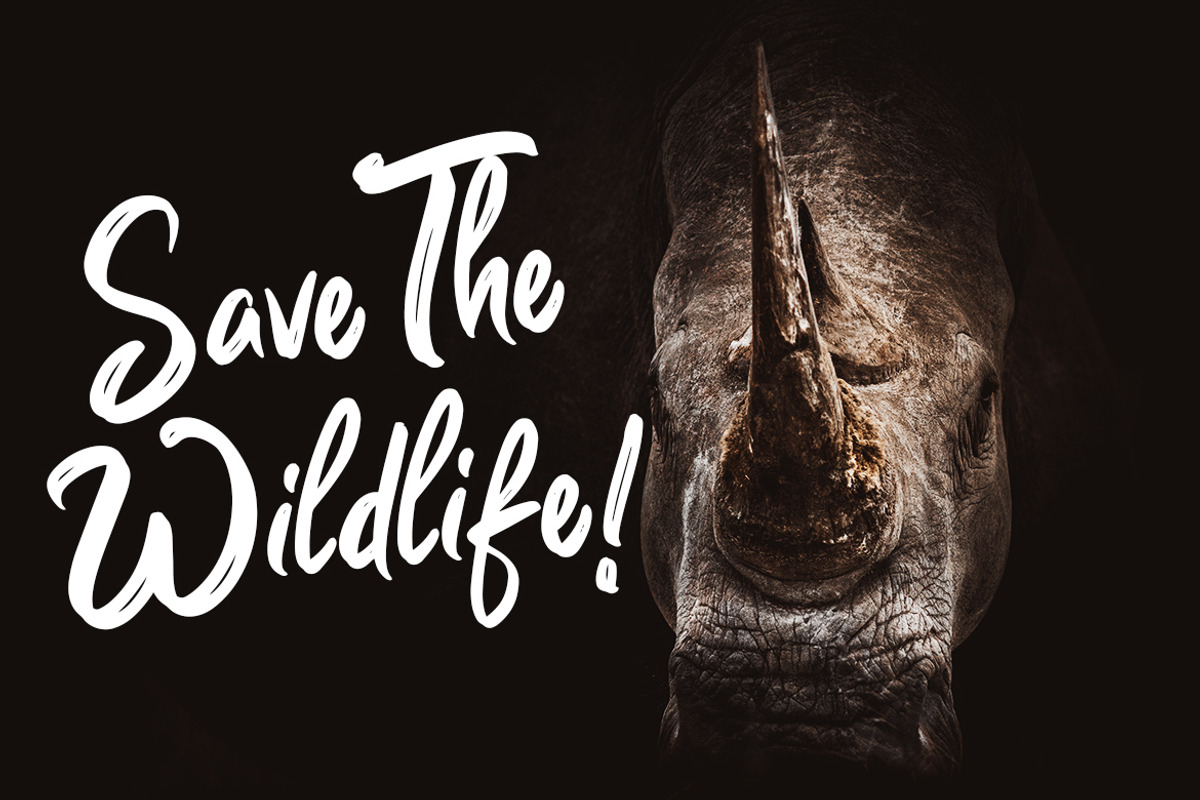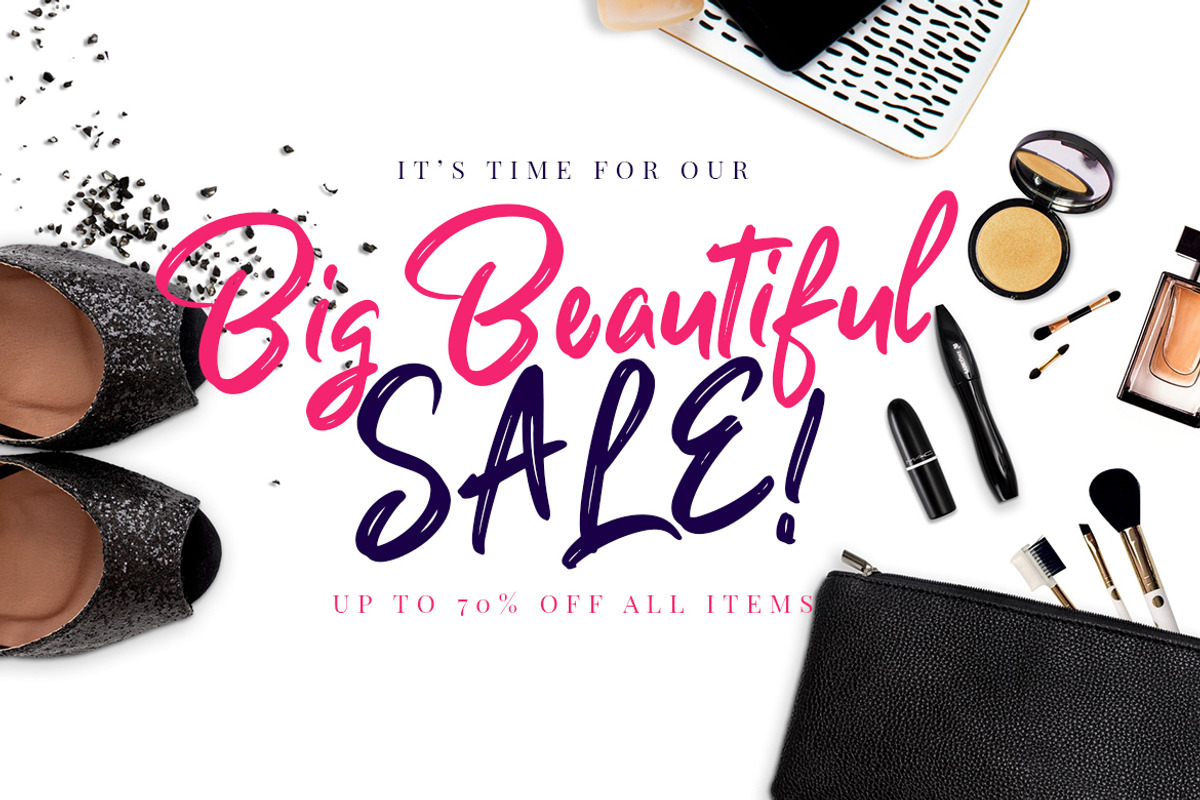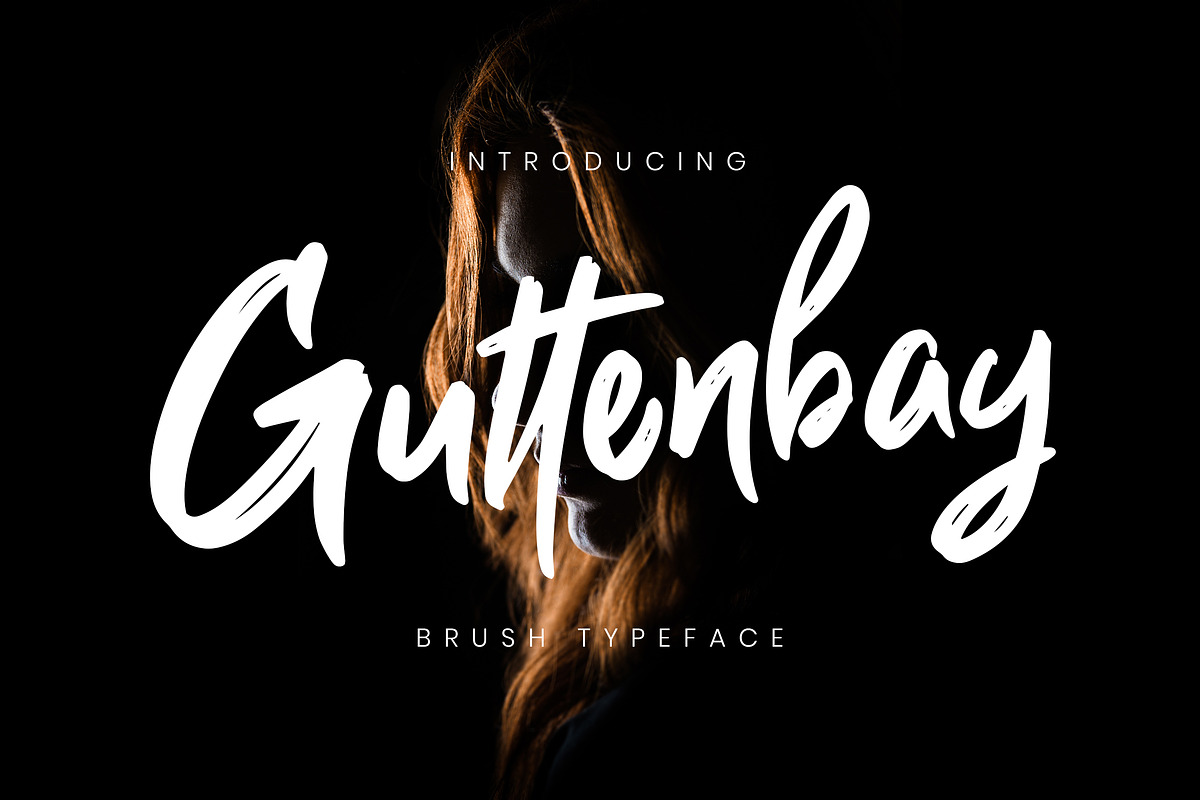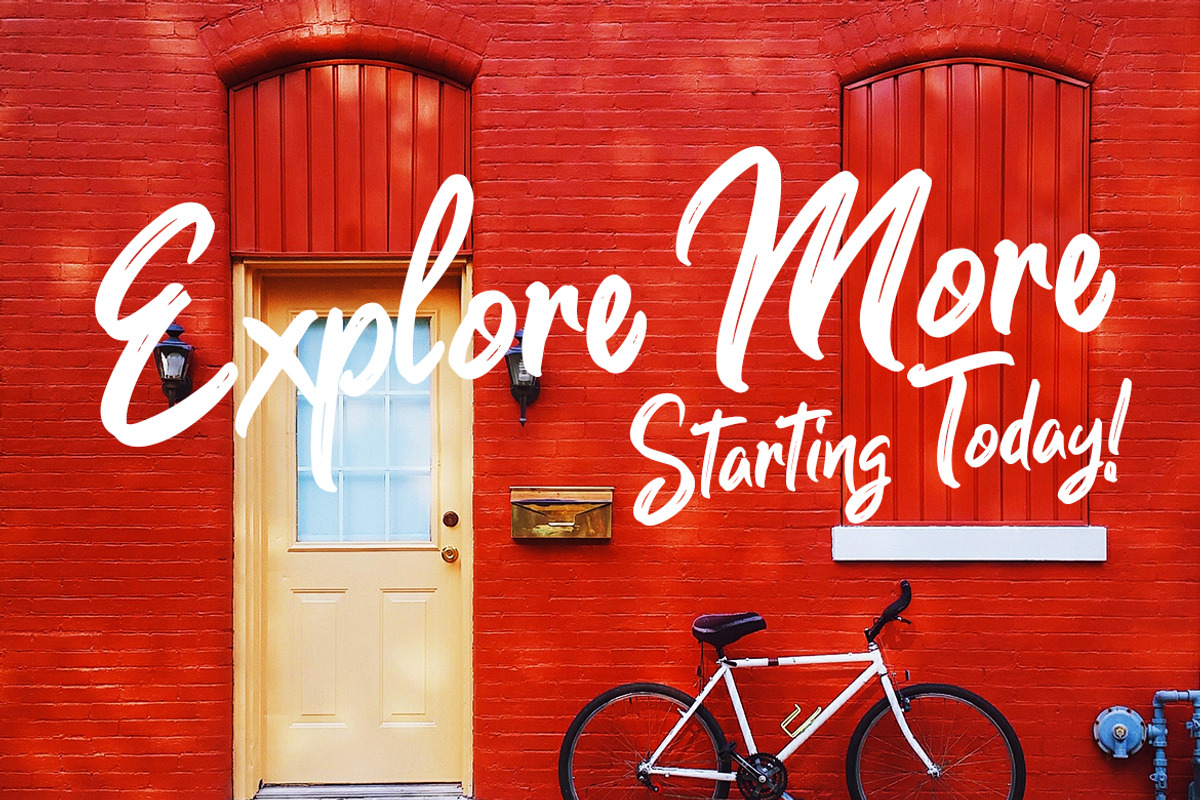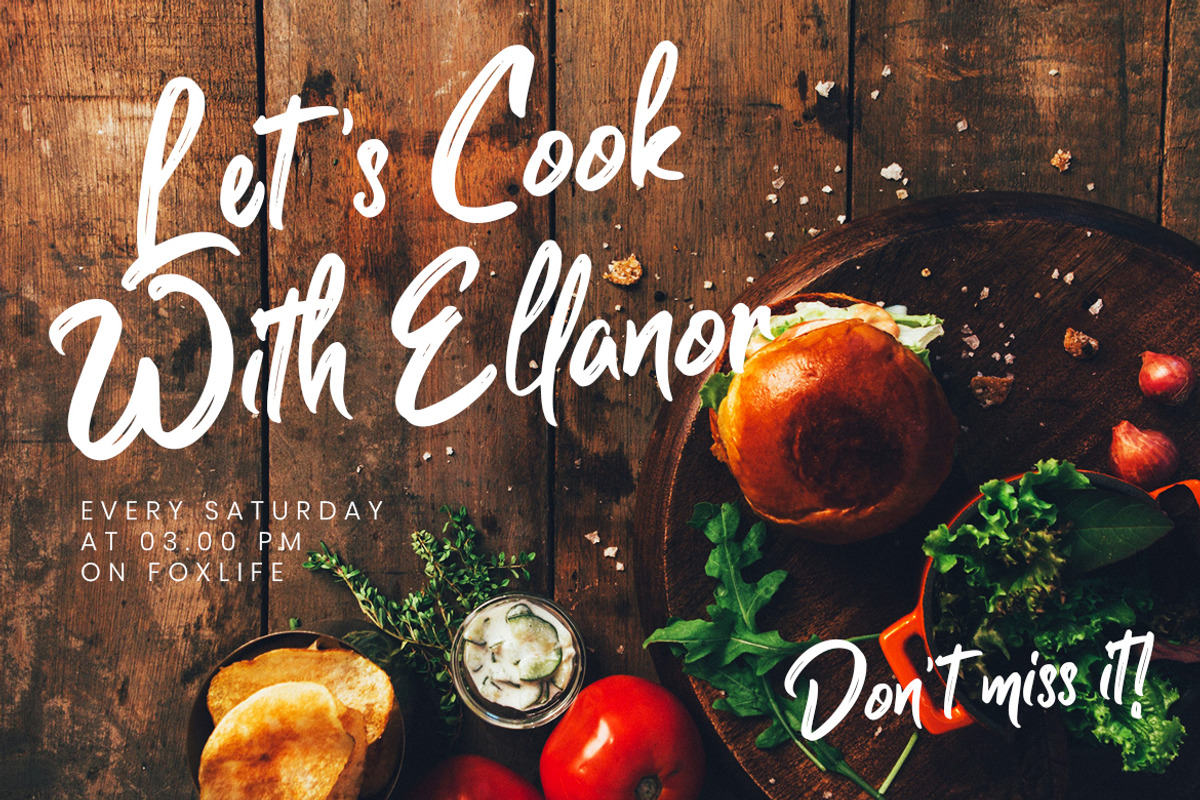
Guttenbay Brush Business Font
Guttenbay is ultrasmooth brush script font with bold and natural looking style with ligature supporting to make your projects look truly authentic and realistic.
Guttenbay is perfect for branding projects, logo, wedding designs, social media posts, advertisements, product packaging, product designs, label, photography, watermark, invitation, stationery and any projects that need handwriting taste.
- Fonts include multilingual support for; ä ö ü Ä Ö Ü ß ¿ ¡
Guttenbay Brush Business Font by Creatype Studio fits naturally into Branding, posters, packaging, typography.